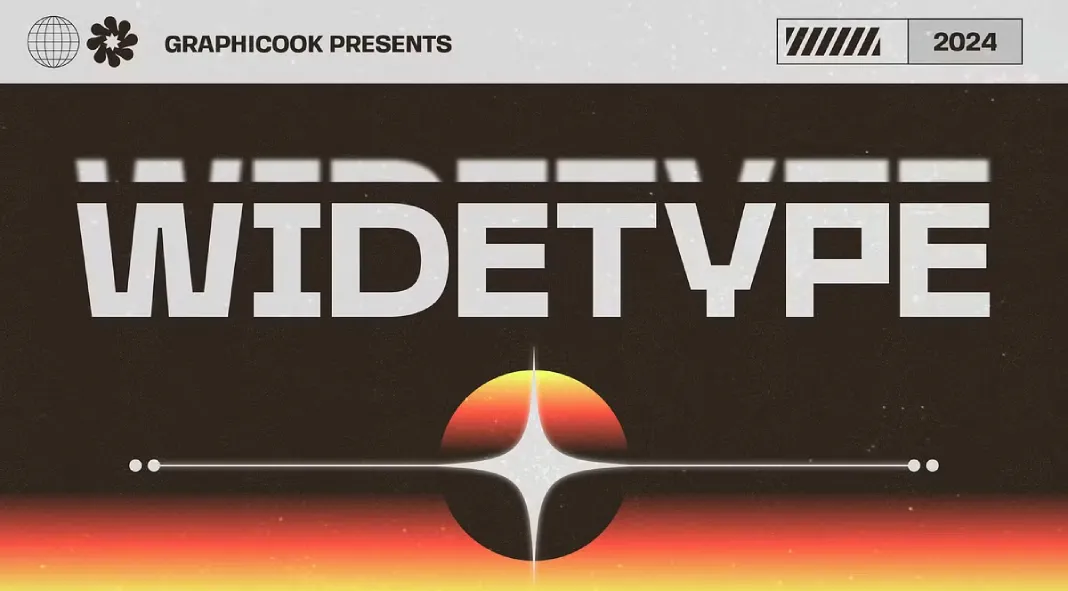
A Futuristic Fusion of Geometric and Grotesque Styles
Designed by Graphicook with inspiration from futuristic aesthetics, the Widetype font seamlessly combines geometric and grotesque styles to deliver a unique, eye-catching typeface. Widetype is not just a font; it’s a versatile design tool that can elevate various creative projects, from logotypes and branding to album covers and posters.
The true strength of Widetype lies in its adaptability. Its geometric forms bring a clean and precise look, while the grotesque elements add a touch of humanism, making it perfect for creating visually striking and memorable designs. The modern twist on these classic styles gives Widetype a distinctive edge, making it suitable for a wide range of applications.
Widetype’s versatility means it can adapt to the aesthetic demands of any project, making it a go-to font for designers seeking to make a bold statement.
Widetype by Graphicook is a font that pushes the boundaries of traditional typeface design. Its seamless blend of geometric and grotesque styles with a modern twist makes it an invaluable asset for any designer. Whether you’re working on headlines, logotypes, magazines, packaging, or any other creative endeavor, Widetype offers a perfect solution for creating designs that stand out.